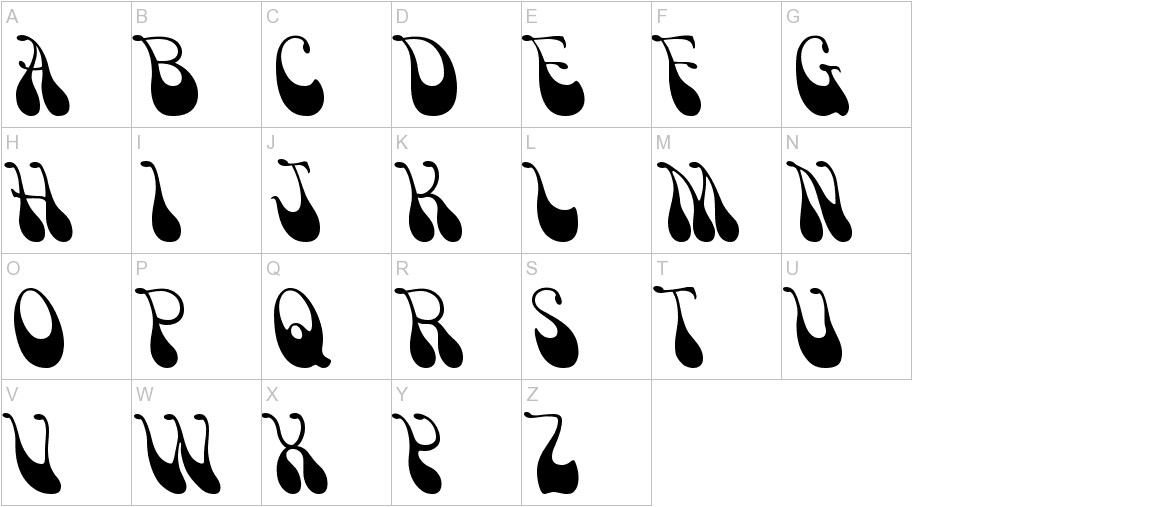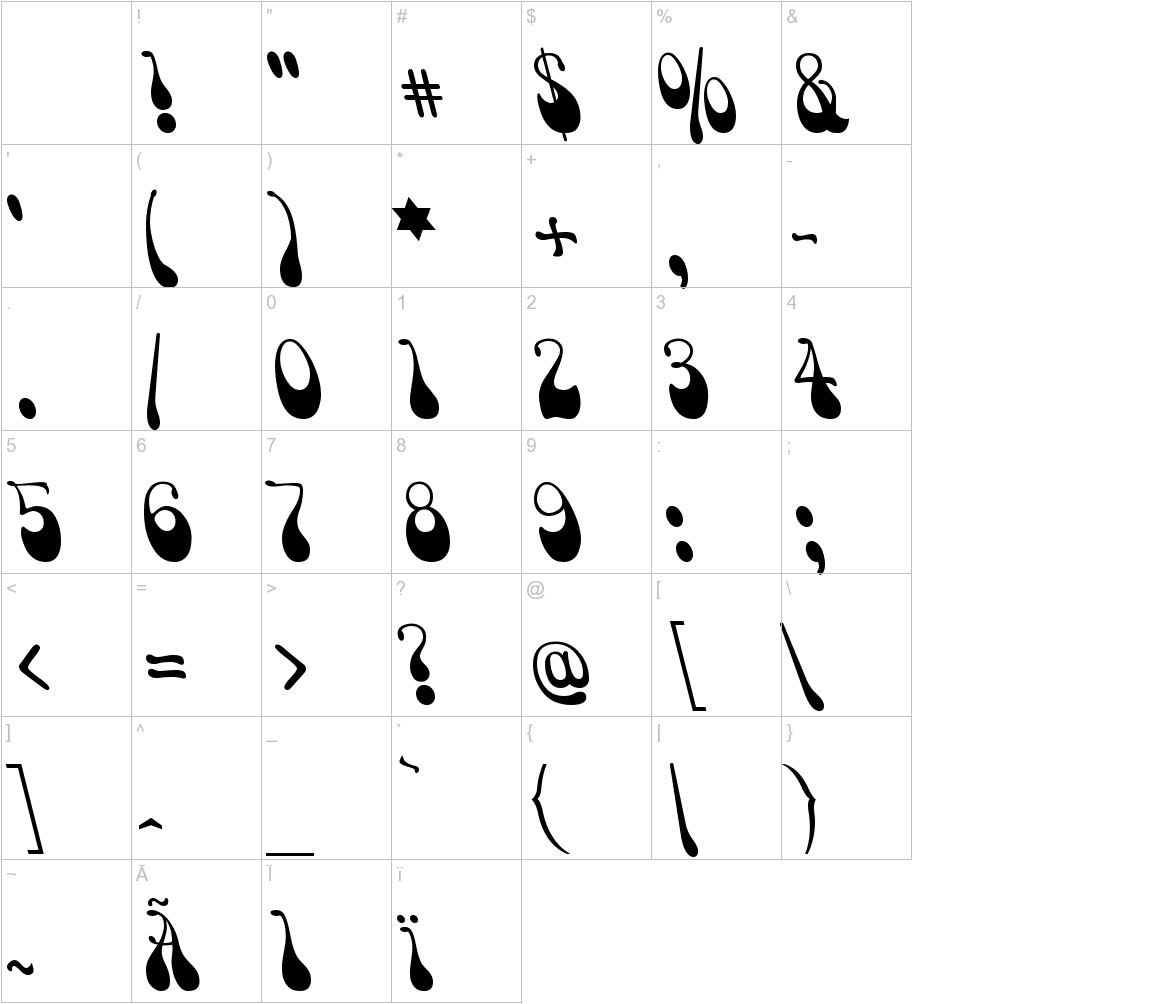
Victor Moscoso
The Victor Moscoso font is based on the 1960s psychedelic poster lettering of the artist Victor Moscoso. The letterforms originate from nineteenth century wood type, are derived from some of Moscoso's most celebrated Neon Rose posters of the late sixties, in particular the quintessential Moby Grape 'Neptune's Notion' poster of 1967.